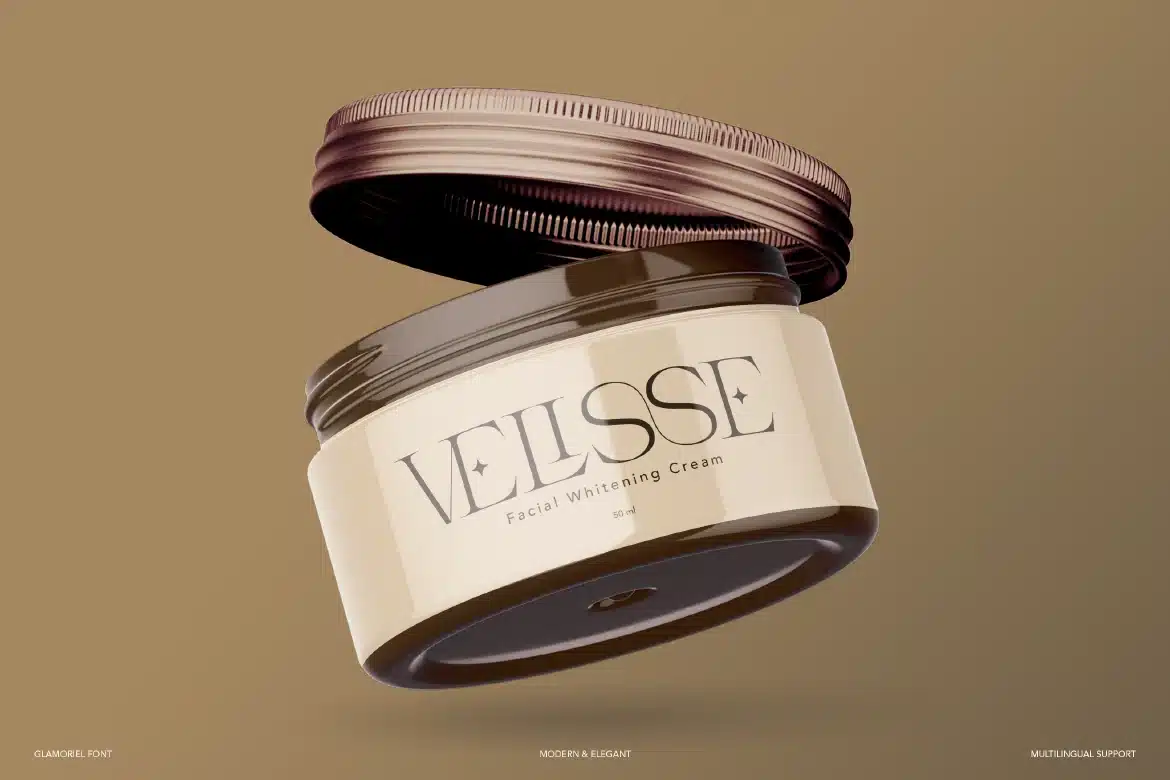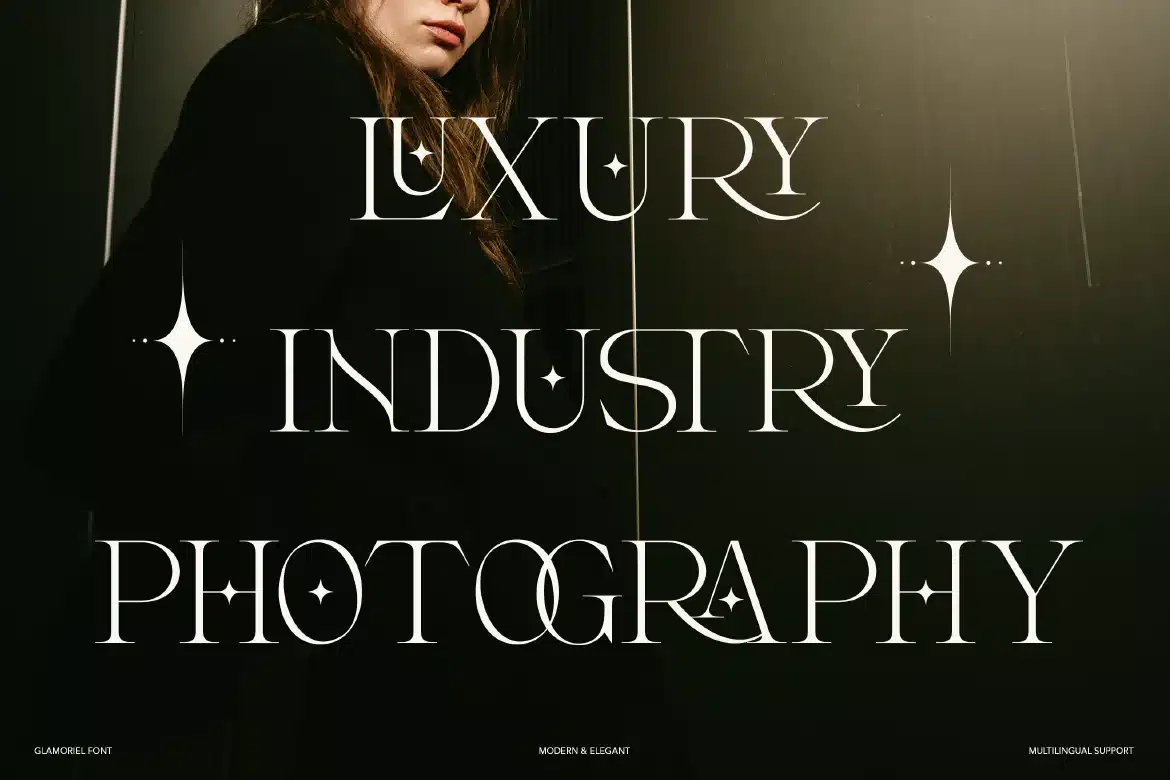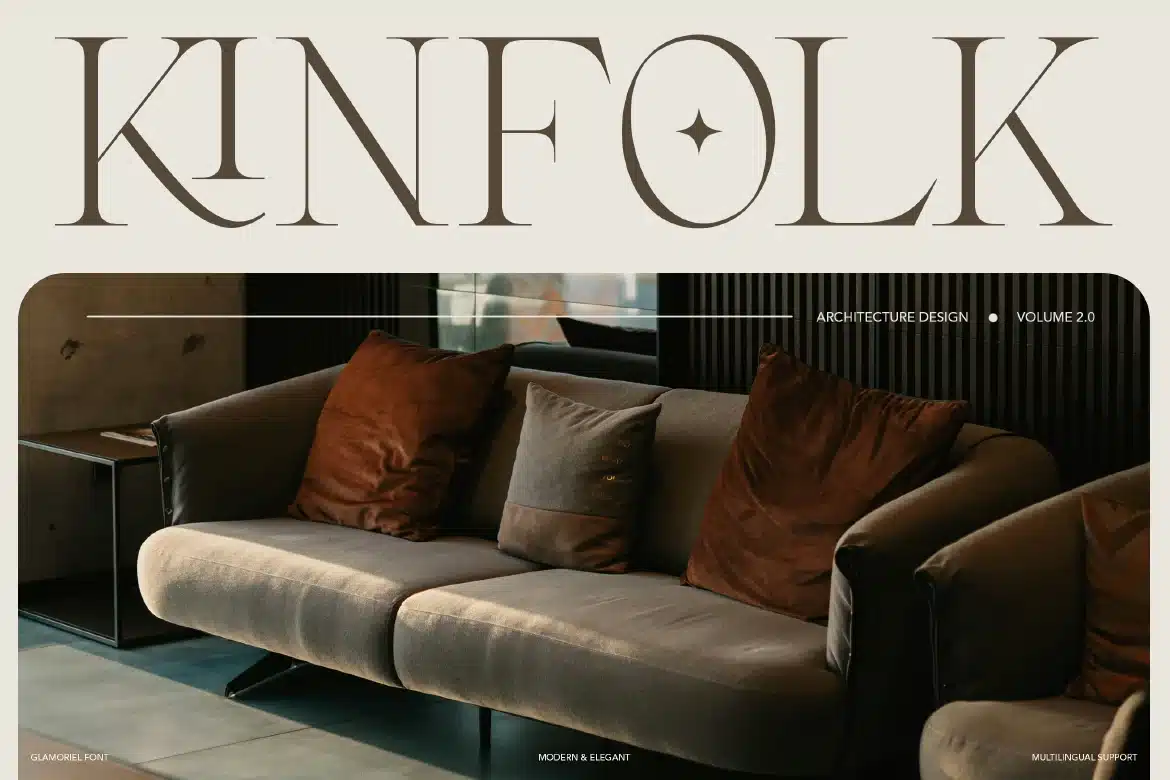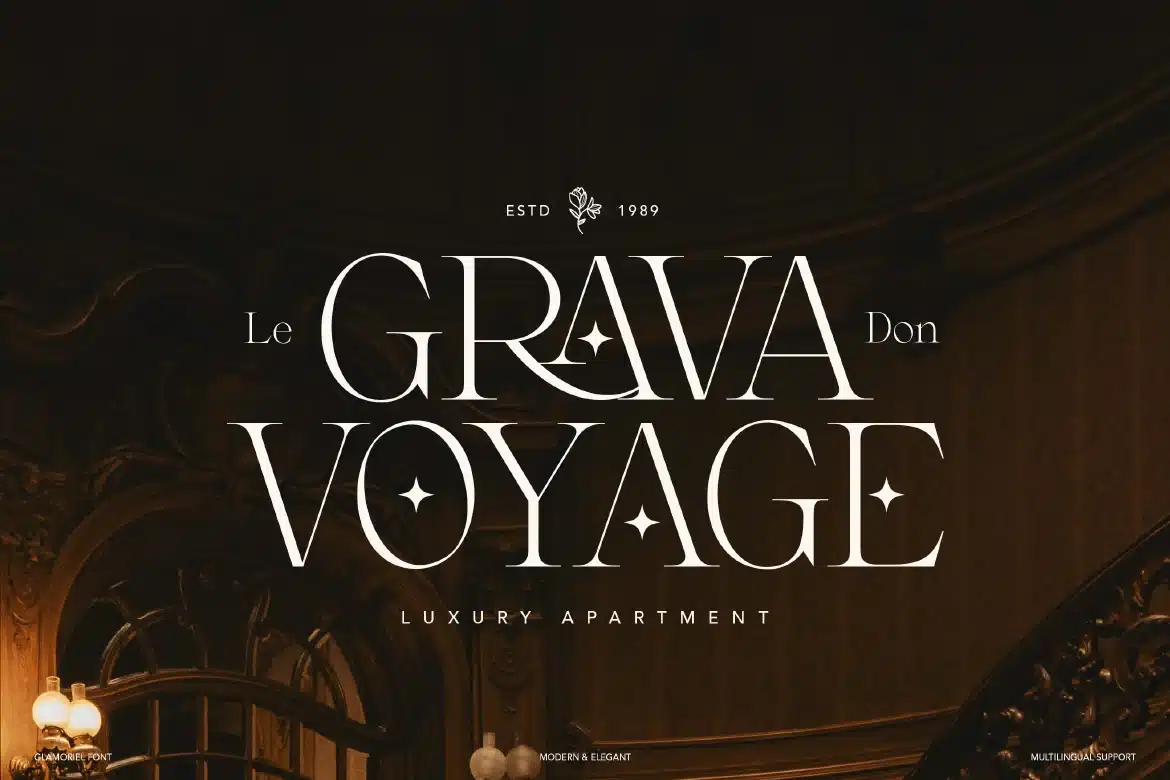
Modern Elegant Serif Font – Glamoriel
Modern Elegant Serif Font - Glamoriel
Glamoriel is a refined modern elegant serif typeface designed to express luxury, grace, and timeless beauty. With its delicate curves, high contrast strokes, and sophisticated letterforms, Glamoriel creates a striking visual presence that feels both classic and contemporary. Its elegant character makes it perfect for high-end designs that require a polished and glamorous touch. Whether for branding, editorial layouts, or premium packaging, Glamoriel delivers a captivating and stylish typographic experience.
Who Should Use Glamoriel?
Glamoriel is ideal for designers, creatives, and brands who want to convey elegance, luxury, and sophistication. It’s especially suited for projects that require a serif font with a glamorous and modern aesthetic.
Luxury branding and identity design
Fashion and beauty projects
Editorial and magazine layouts
Elegant logo design
Premium packaging and labels
Wedding and event design
Social media visuals
Sophisticated typography compositions